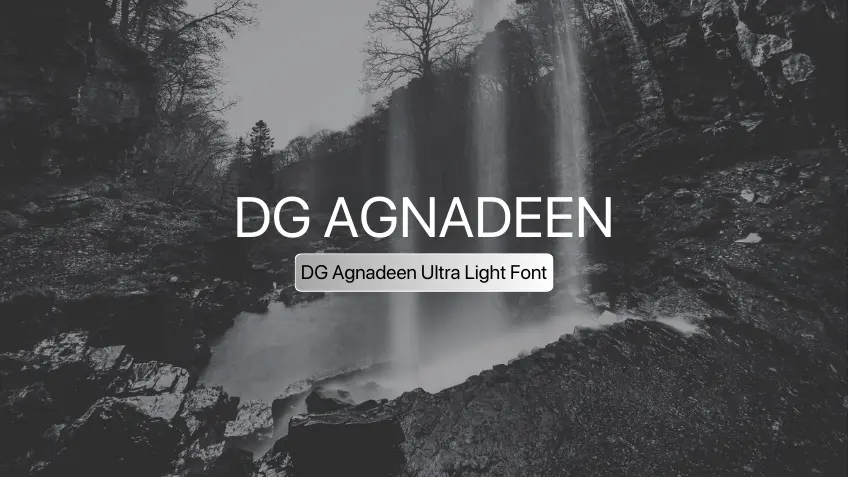
DG Agnadeen Ultra Light
DG Agnadeen Ultra Light Font
The font DG Agnadeen Ultra Light, designed by Hossam El Deen Ahmed, falls under the Display, Sans Serif category & DG Agnadeen font family. Its smooth, flowing letterforms make it a versatile choice for projects that require both elegance and readability. DG Agnadeen is particularly well-suited for Branding, Corporate, Body Text, UI/UX Design, Identity, Digital Design, Arabic and Arabic Script. With its balance of simplicity and decorative appeal, this font brings a polished touch to both personal and professional designs.